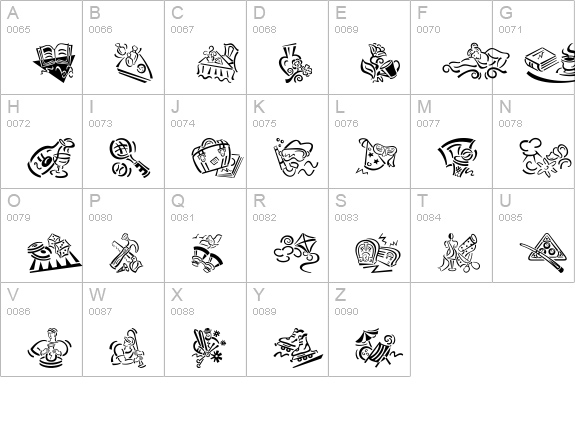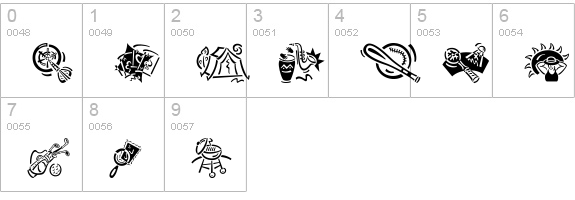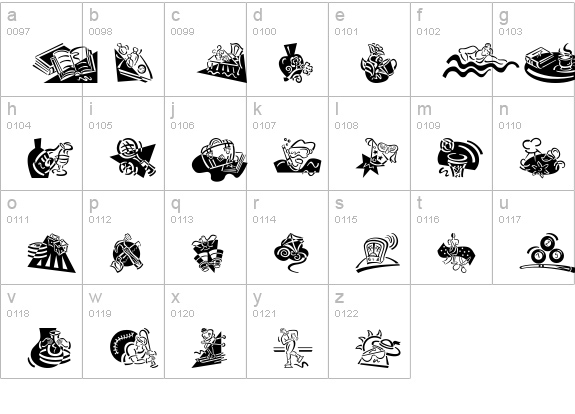
DF Diversions Font Details
DF Diversions font is a modern and versatile typeface that is perfect for adding a touch of creativity to your designs. With its unique and playful style, this font is sure to make your projects stand out. Whether you're working on a poster, logo, or website, DF Diversions will bring a fresh and youthful vibe to your work. The best part is that DF Diversions font is completely free to download at FontsMarket.com. Simply visit the website and start using this eye-catching font in your projects today. Don't miss out on this fantastic opportunity to enhance your designs with the fun and dynamic DF Diversions font.